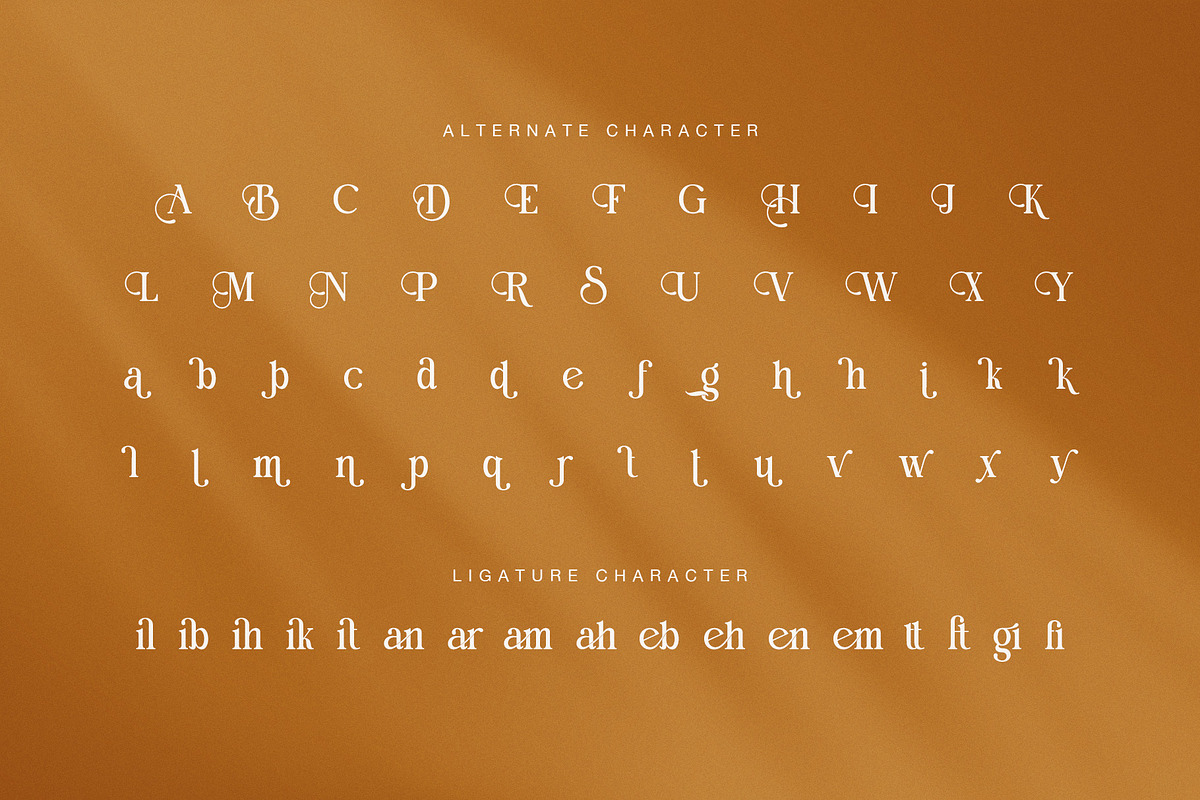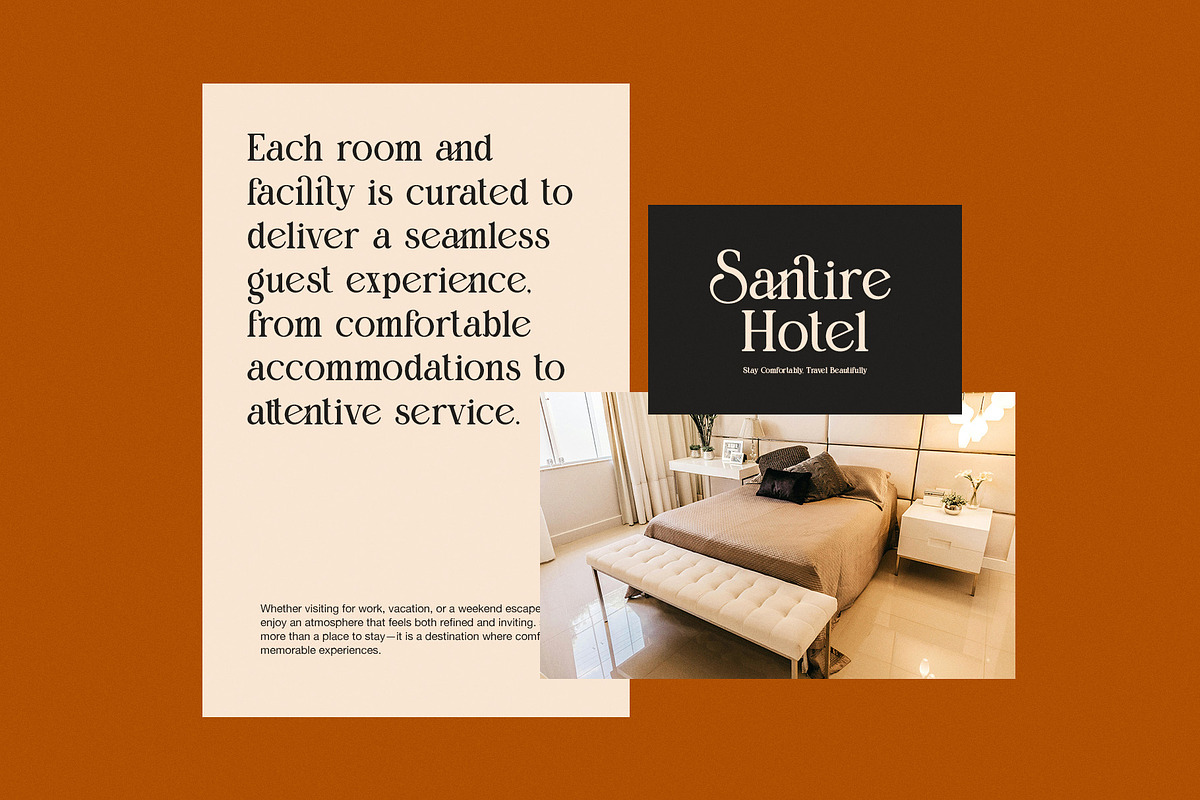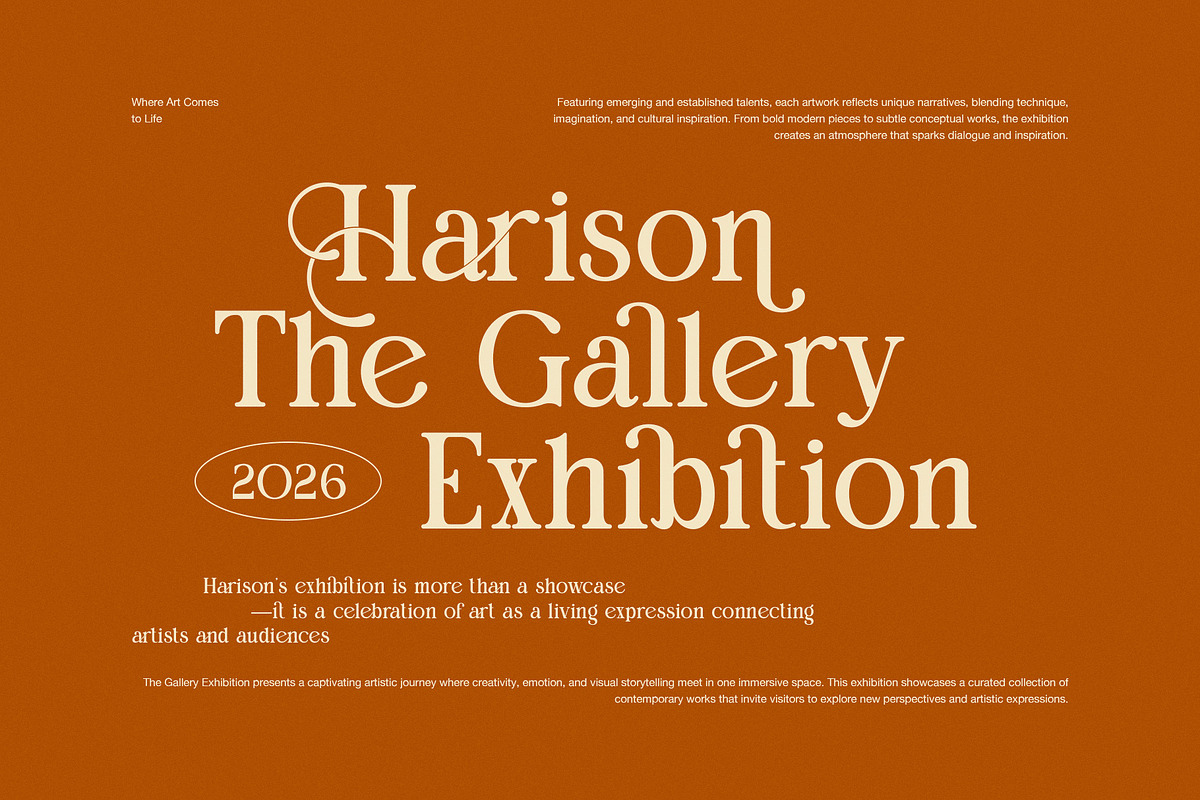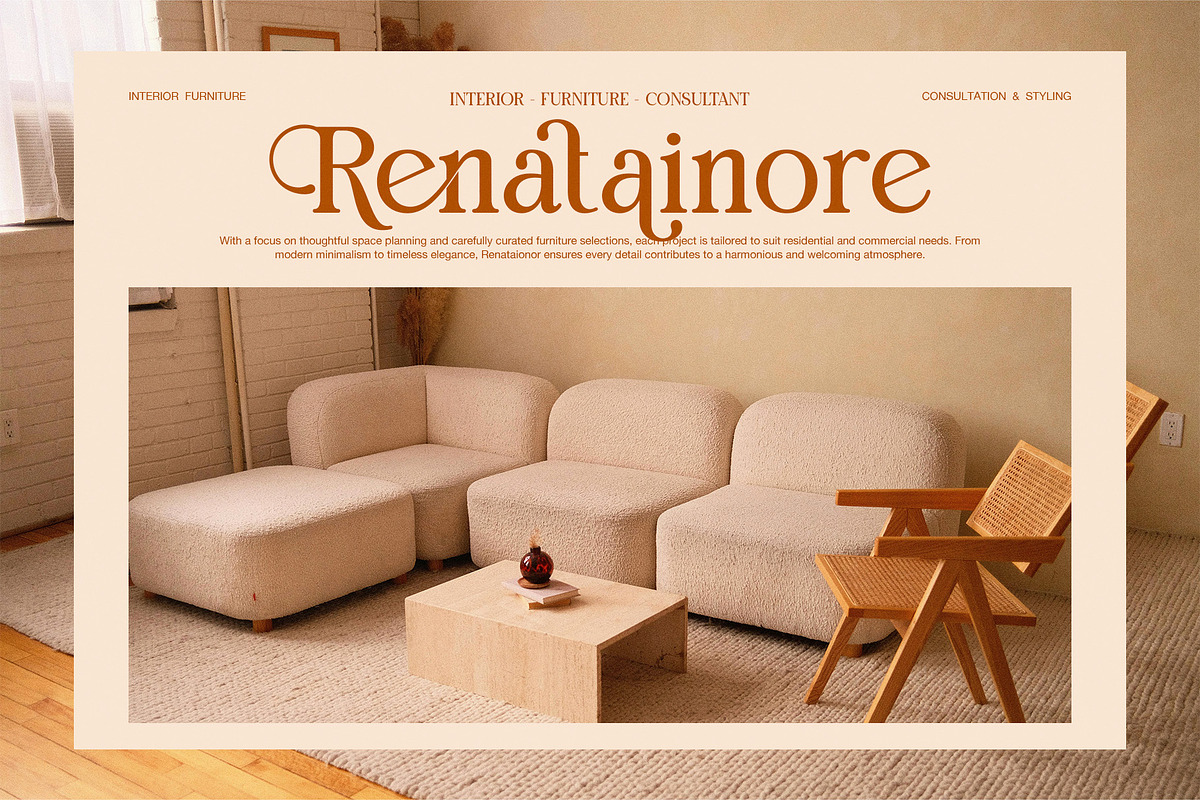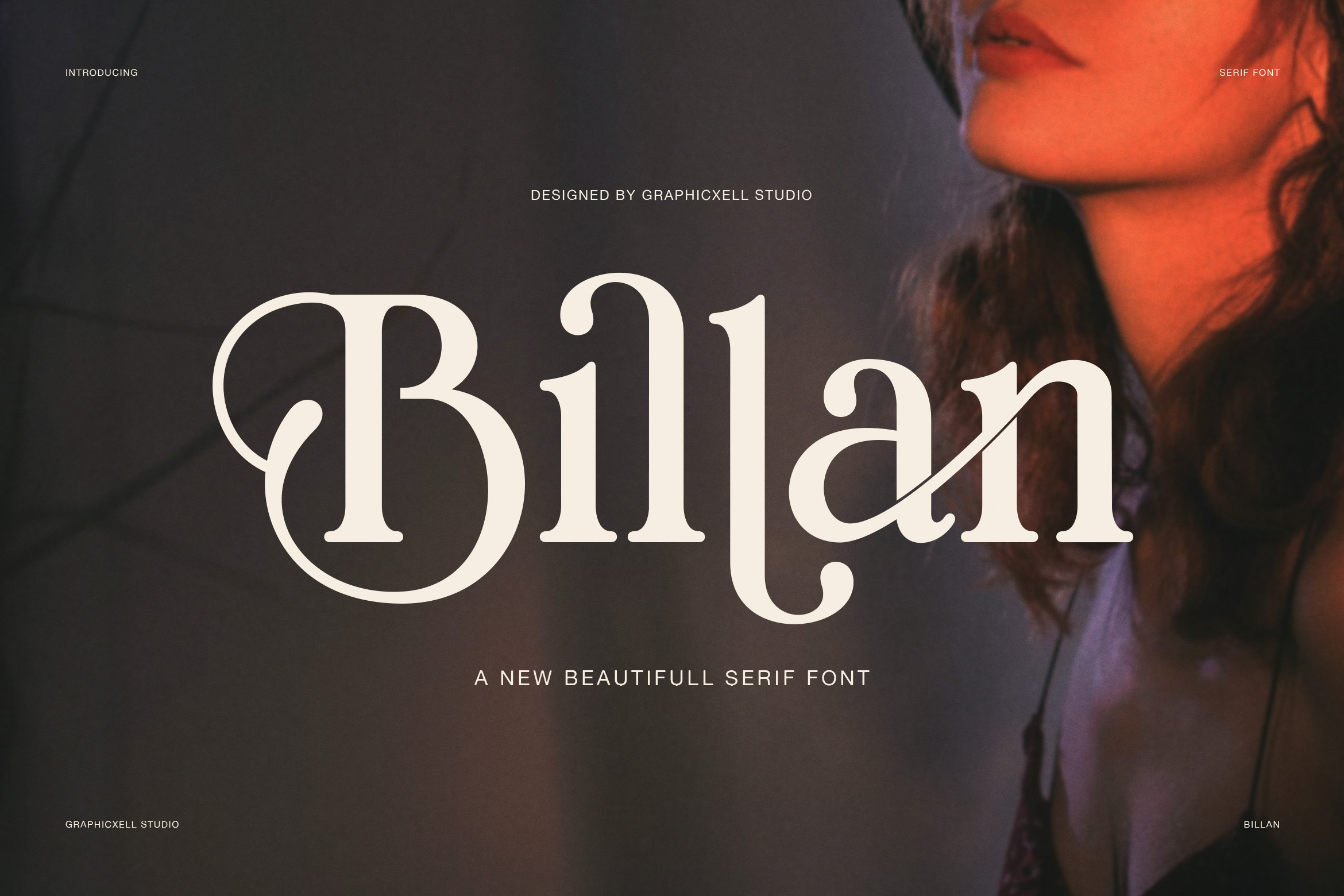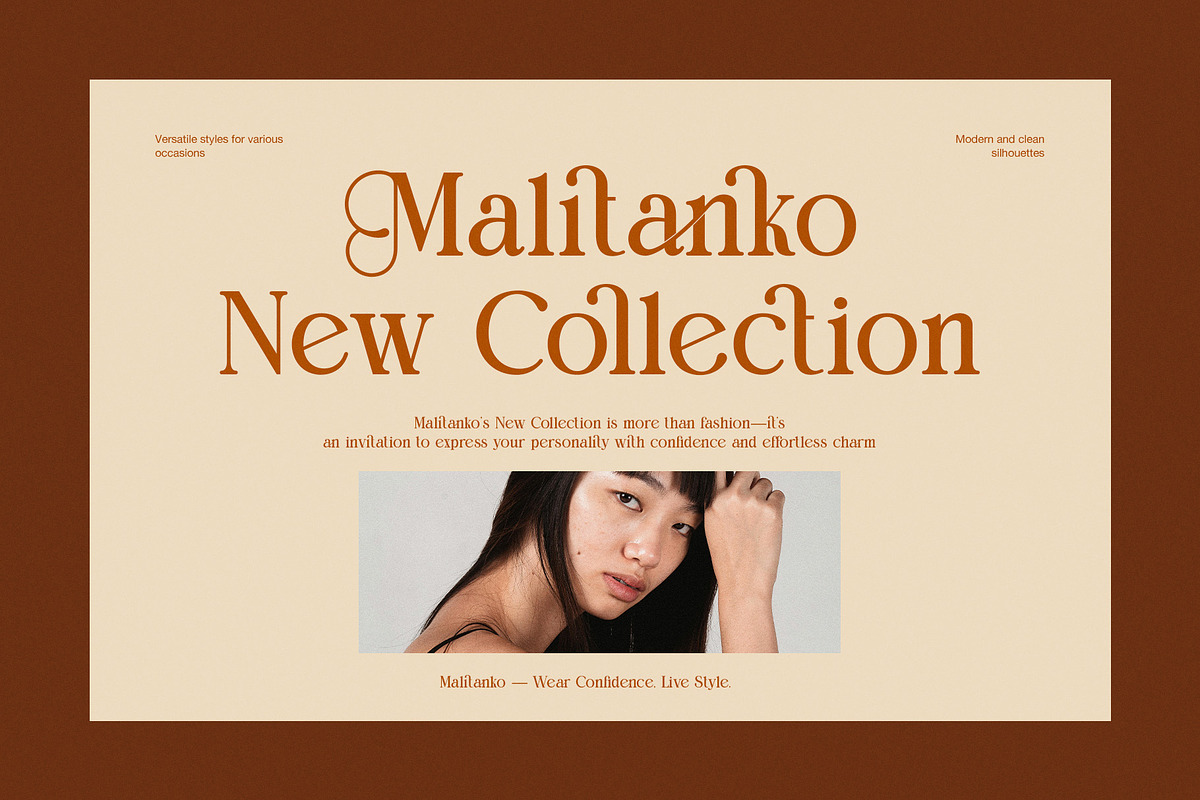
Billan Elegant Serif Font
Billan Font Style
Billan is an elegant serif font with a soft vintage soul and a graceful modern look. It combines classic serif structure with rounded details, curved terminals, and stylish alternates. As a result, the font feels warm, artistic, and full of charm.
At first glance, Billan shows a high level of personality. The letterforms are smooth and decorative, yet they still look clean and readable. In particular, the curved strokes in letters like B, a, l, and n give the font a flowing rhythm. Because of that, Billan feels refined without looking stiff.
Shape and Visual Character
The shape of Billan is ideal for display work. Its serif structure is clear, while the soft curves add a romantic and handmade mood. Moreover, the alternate characters bring extra flair, so words can look more unique and expressive.
This font also includes elegant ligatures that help text feel connected and polished. Therefore, Billan is a strong choice for designers who want a serif font with beauty and personality. It feels stylish, but it also stays friendly and usable.
Best Uses for Billan
Billan works best in projects that need an elegant and feminine voice. It looks beautiful in fashion branding, beauty packaging, art posters, boutique logos, hotel identities, and interior design layouts. In addition, it fits product labels, social media posts, invitation cards, and editorial headlines.
Billan is a great choice for:
- fashion branding
- beauty logos
- boutique packaging
- art exhibition posters
- hotel branding
- interior design titles
- editorial layouts
- social media graphics
- Features and Benefits
Billan offers more than a lovely look. It gives your design a rich visual tone that feels premium, calm, and memorable. The alternates help you build custom wordmarks, while the ligatures add a softer flow to each line.
Even better, Billan can move across many themes with ease. It can feel romantic for weddings, stylish for fashion, and warm for home or lifestyle brands. Because of that, this elegant serif font is flexible for many creative needs. If you want a serif display font with charm, softness, and a strong brand presence, Billan is a smart and beautiful choice.